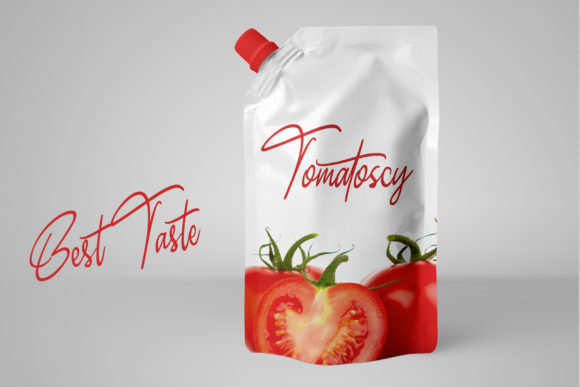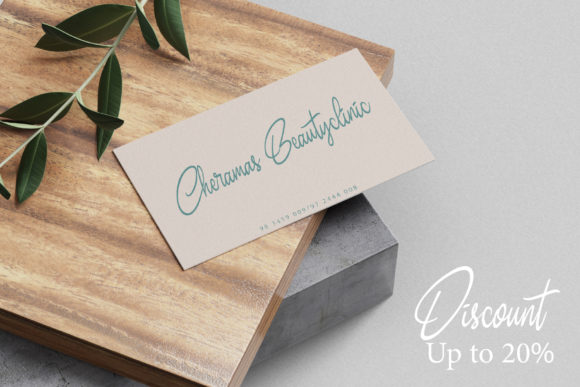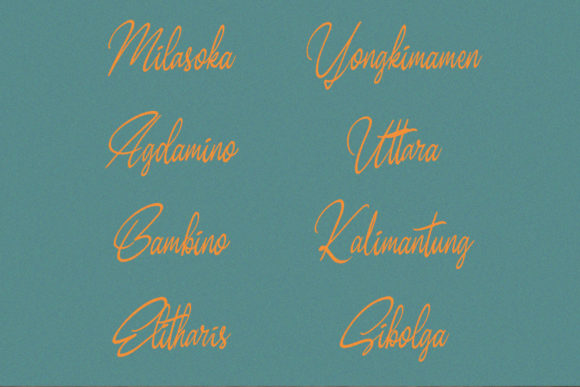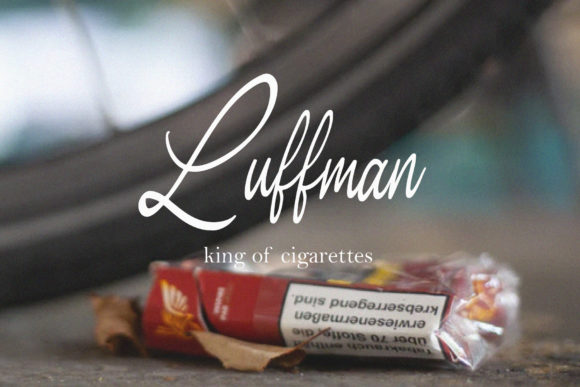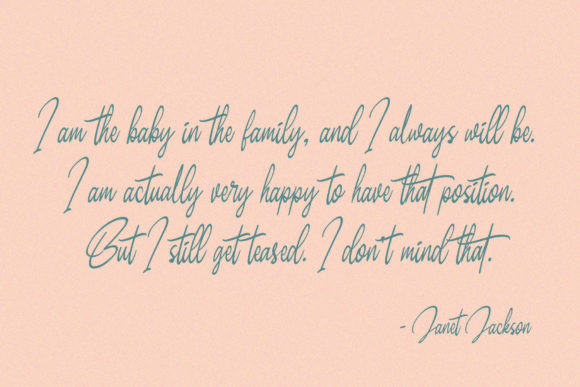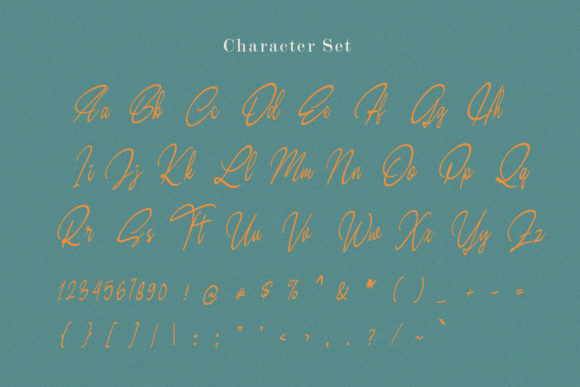
Introduction to Dragmatis Font
Dragmatis is an incredibly distinct, delicate and timeless handwritten font.
Key Features of Dragmatis Font
Why Choose Dragmatis Font?